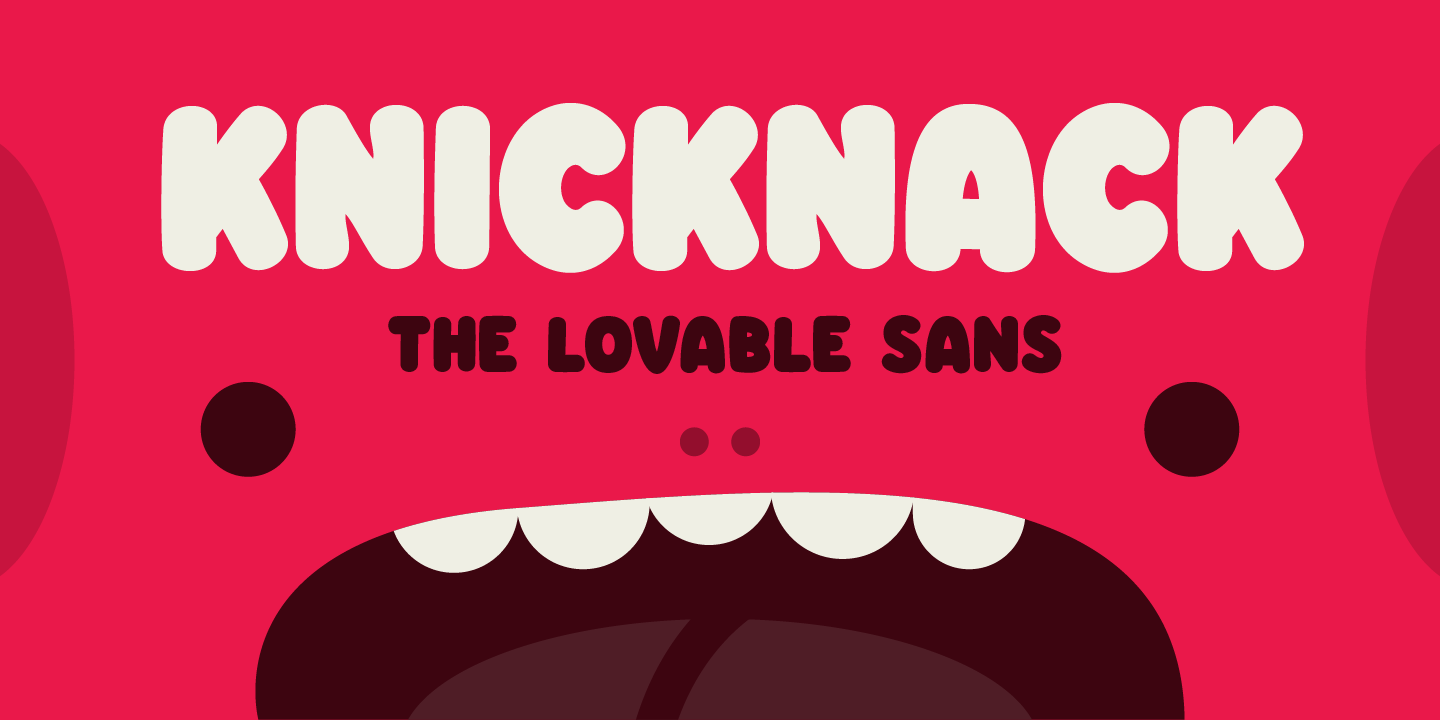
Knicknack Font is perfect for vintage-inspired designs, retro branding projects, artisan product packaging, craft business logos, handmade product labels, boutique store signage, creative posters, and nostalgic advertising campaigns.
Knicknack Font is exciting because it combines rustic charm with modern readability, featuring hand-crafted letterforms that evoke authenticity and warmth. Its unique character variations and organic texture make every design feel personal and artisanal, while maintaining professional quality that works across both digital and print applications.
The Knicknack Font family includes multiple weights and styles: Regular, Bold, Light, Italic, Bold Italic, Condensed, and Extended versions. Each variant maintains the distinctive handcrafted aesthetic while offering versatility for different design needs and hierarchical typography requirements.
This distinctive typeface brings character and personality to any creative project. Whether you're designing wedding invitations, café menus, or artisan brand identities, Knicknack Font Free Download delivers the perfect balance of rustic appeal and contemporary functionality. The font's carefully crafted letters feature subtle imperfections that add authentic charm without compromising legibility. Designers appreciate its versatility in both large display sizes and smaller text applications. The complete character set includes uppercase, lowercase, numerals, punctuation, and special characters, making it suitable for international projects. With its warm, inviting appearance, Knicknack Font transforms ordinary text into engaging visual communication that resonates with audiences seeking authentic, handcrafted aesthetics in today's digital world.